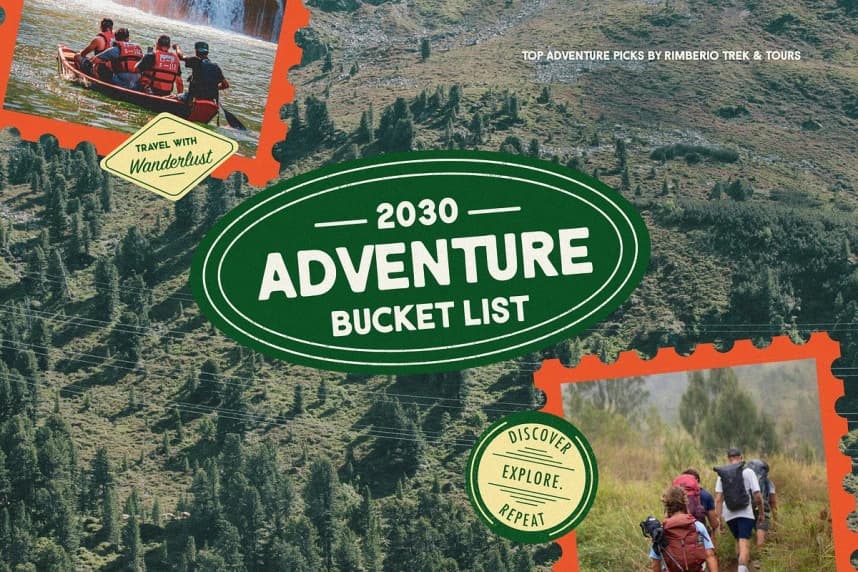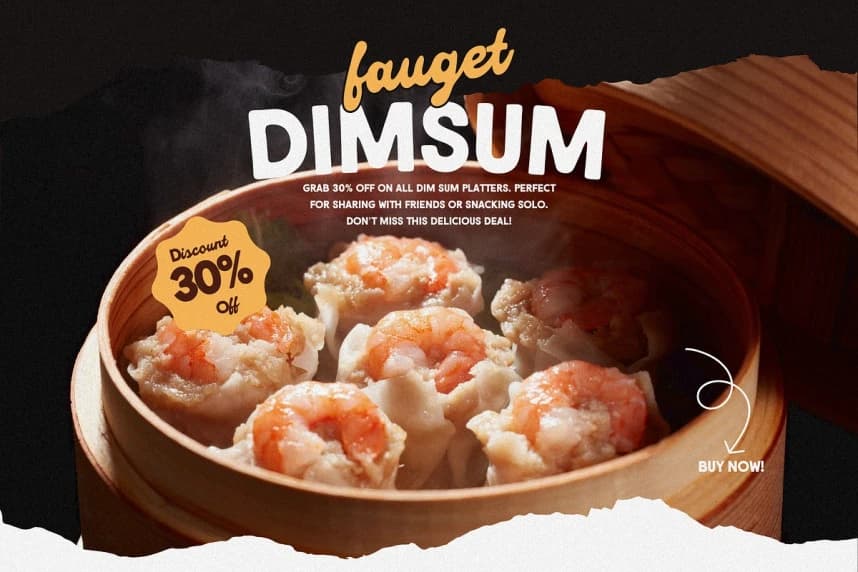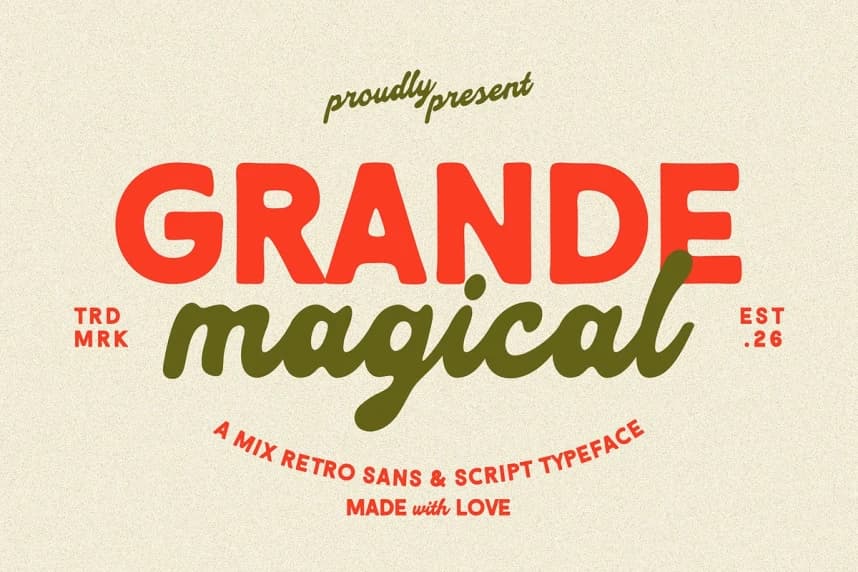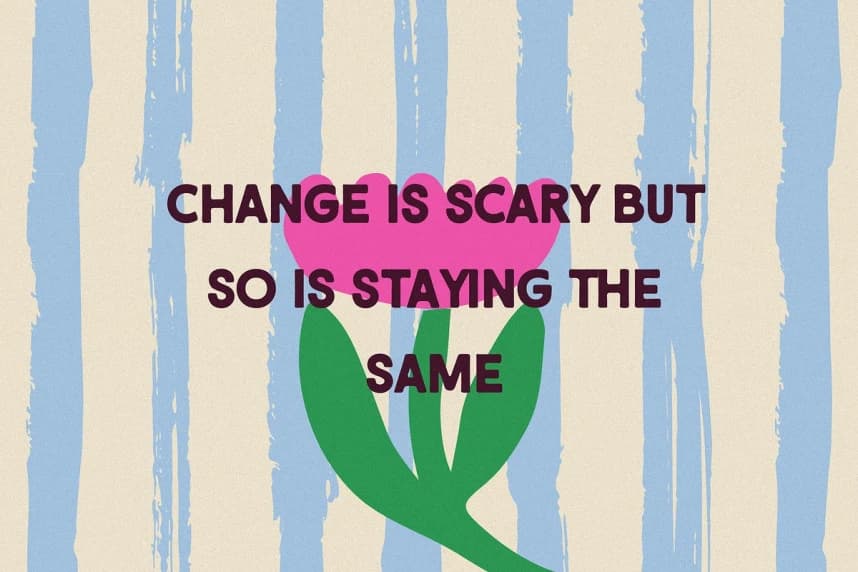
Grande Magical Font is a charming retro-inspired typeface that blends bold sans lettering with a smooth, flowing script to create a playful yet stylish look. Designed to capture the warmth of vintage design, Grande Magical brings a nostalgic feel while still looking fresh and modern